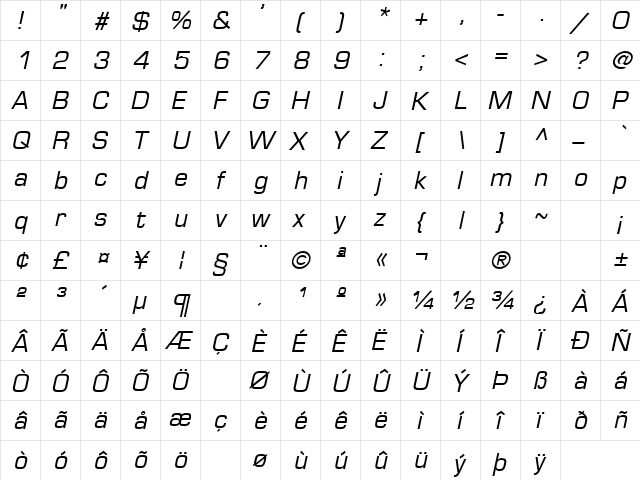
Green Mountain 5 Italic
Design Context for Green Mountain 5 Typeface
Green Mountain 5 offers clean, dependable letterforms without strong stylistic allegiance, making it a practical choice for designers who need flexibility. The slanted form adds forward momentum and visual energy.
Pro Tip: Use Green Mountain 5 for emphasis, pull quotes, and subheadings where its slanted energy can add rhythm to the layout.